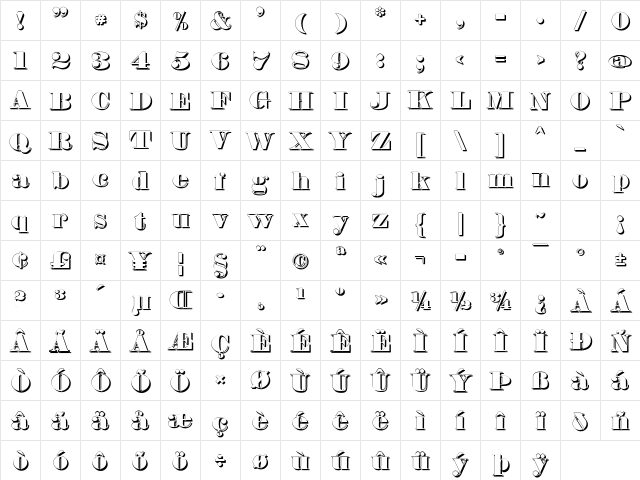
Fette Bauersche Antiqua Shaddow  UNZ Pro Regular
Foundry: Peter Wiegel
Designer: Peter Wiegel, original typeface by Bauersche Giesserei 1870
Design Context for Fette Bauersche Antiqua Shaddow UNZ Pro
Fette Bauersche Antiqua Shaddow UNZ Pro is a composed and adaptable typeface that performs quietly and consistently across a wide range of design contexts.